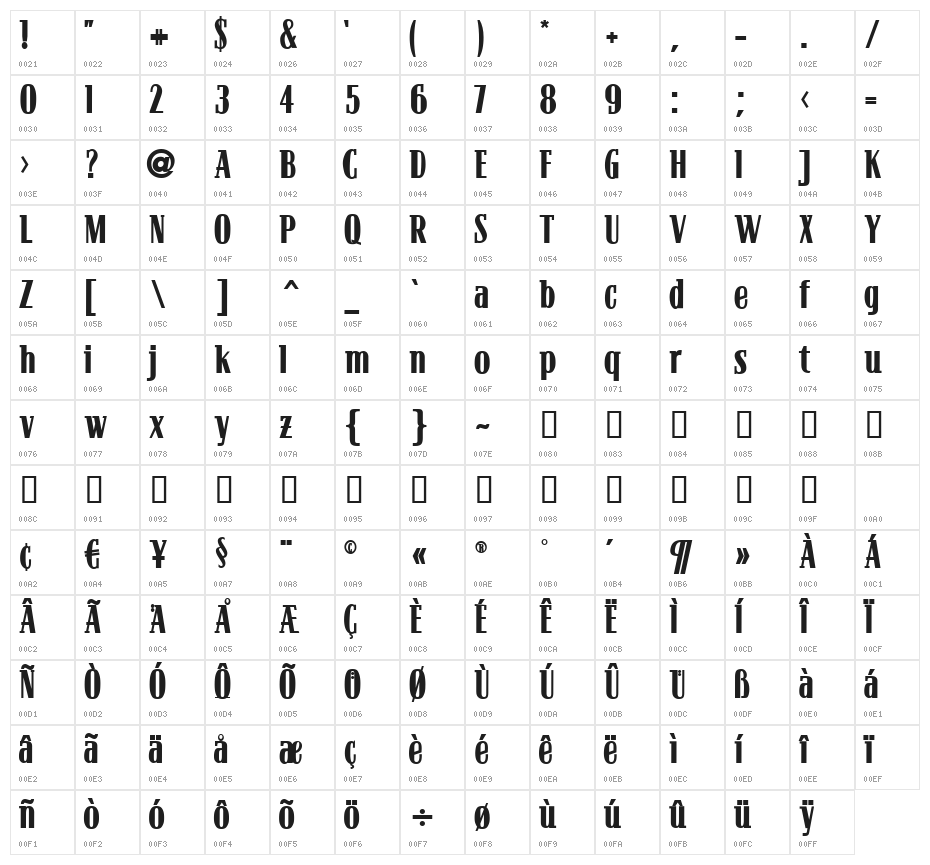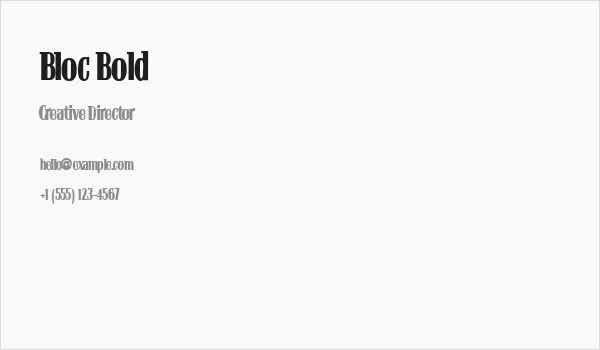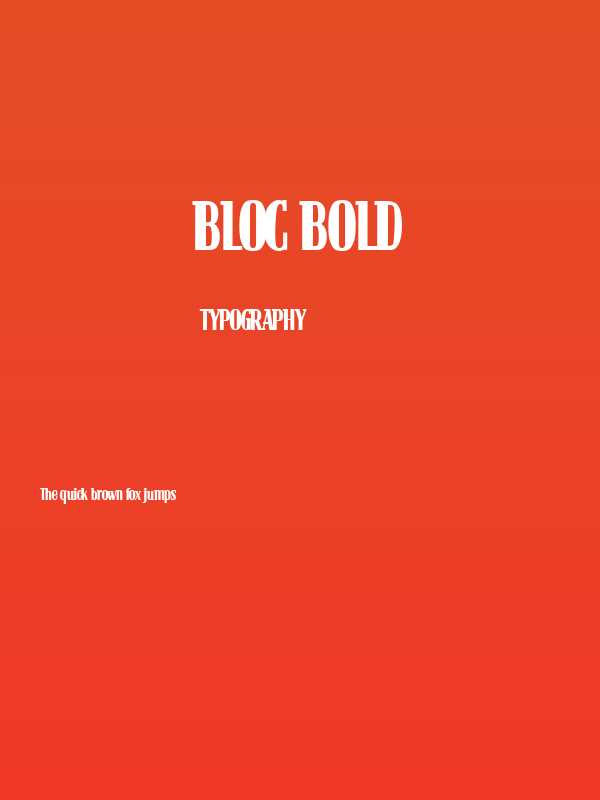
Bloc Bold Font
Bloc Bold Description
This font features a bold and impactful style, characterized by thick, heavy strokes that create a strong visual presence. The letters are tall and slightly condensed, giving them a commanding appearance. The uppercase characters are particularly striking, with a uniform height that enhances their boldness. The lowercase letters maintain the same weight, ensuring consistency across the typeface. The numbers are equally robust, matching the overall aesthetic. Special characters are designed with the same boldness, ensuring they stand out. This font is ideal for making a statement, with its high contrast and solid structure.
| Proposed Projects | Ideal for headlines, posters, and branding materials where a strong, bold statement is needed. |